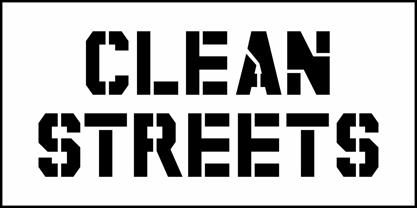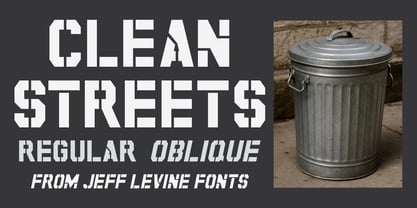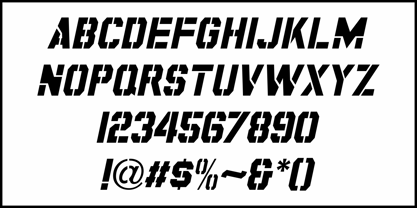
Clean Streets JNL
by Jeff Levine
The Clean Streets JNL Font Family was designed by Jeff Levine and published by Jeff Levine. Clean Streets JNL contains 2 styles and family package options. More about this family
In the Alfred Hitchcock Presents episode "The Right Kind of Medicine" [from, 1961] starring Robert Redford, during the opening scene the camera pans by a public trash can with the stenciled phrase "Help Keep Our City Clean" painted on it. The message was done in a bold sans serif type design with chamfered corners. This inspired Clean Streets JNL, which is available in both regular and oblique versions.
Jeff Levine has been in love with lettering since the third grade, when a schoolmate brought a lettering stencil into class. He has worked in both the graphics and music industries, and began his work with digital type via his own site, which hosted over one hundred free dingbat fonts until its retirement in 2009. Although these fonts were experimental at best, Jeff received "thank you" letters from points all over the world for making his designs available. Encouraged by these responses, Jeff decided to set his sights on creating interesting and commercially viable type fonts.